North Land Typeface – Font Bundle by Pratama Yudha
About this font family
North Land Typeface is a handlettering vintage font inspired by handmade lettering and typography. The font have smooth edges to simulate vintage printing, so it will bring a handdrawn classic look feel.
Come with 3 font files North Land Script, North Land Vintage Sans Serif and North Land Swash to be paired together for an vintage and classic look. I think this font set is the best way to learn manual typography.
Suitable for digital lettering, branding materials, t-shirt, print, business cards, quotes, logo, poster, t-shirt, nature photography and applicable for any graphic design.
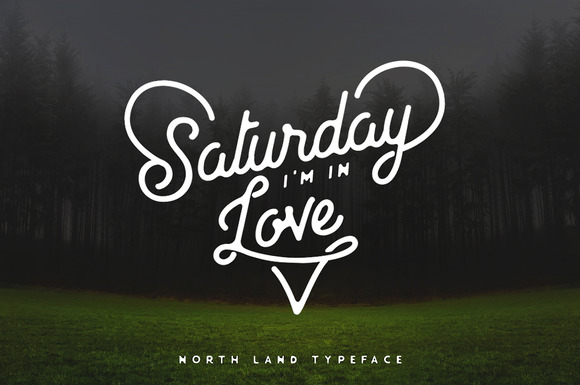
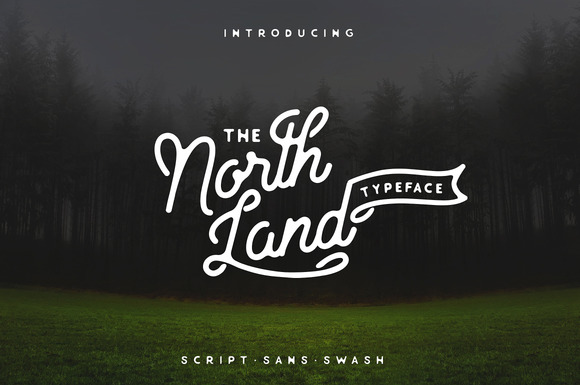
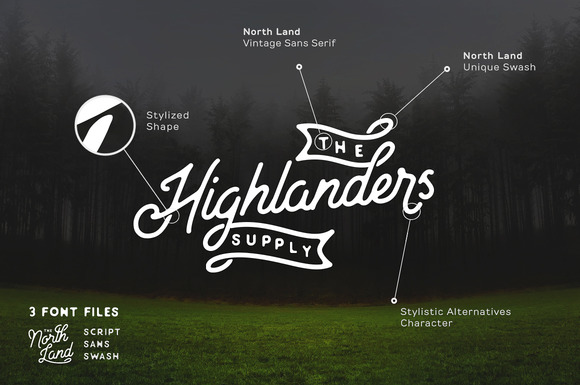
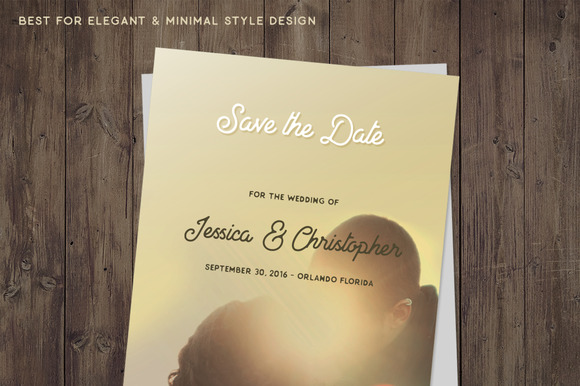
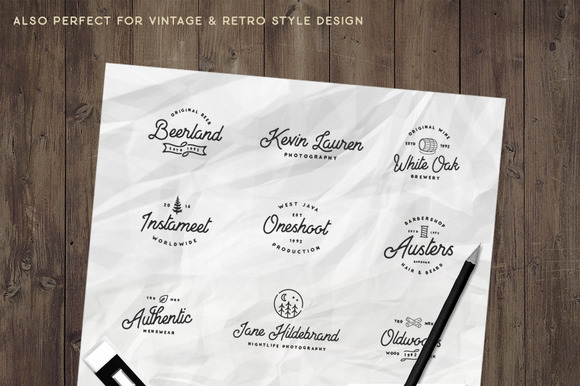
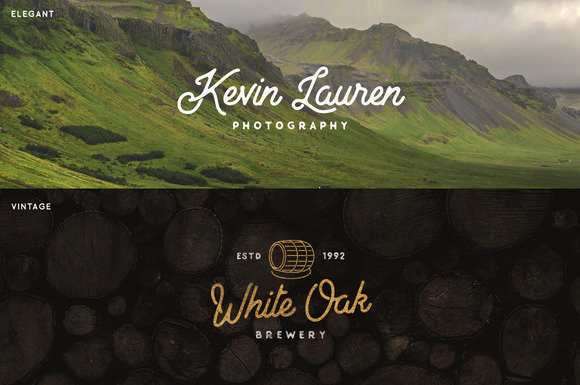
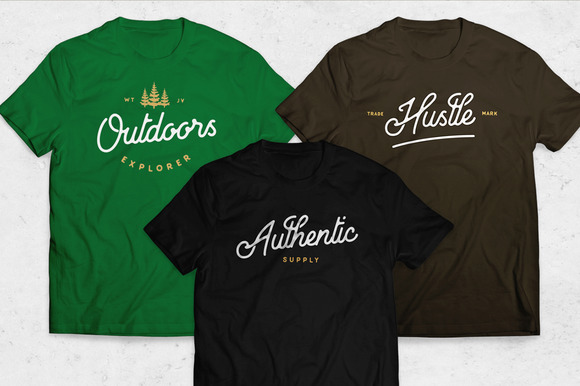
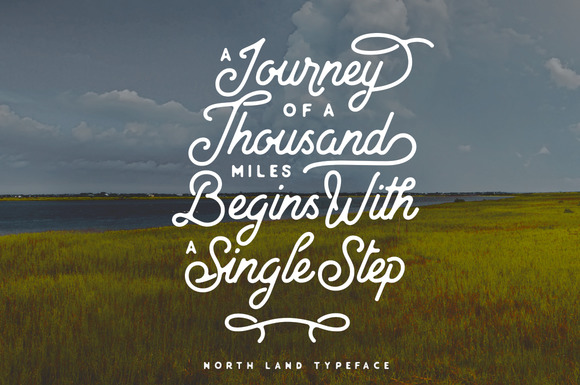
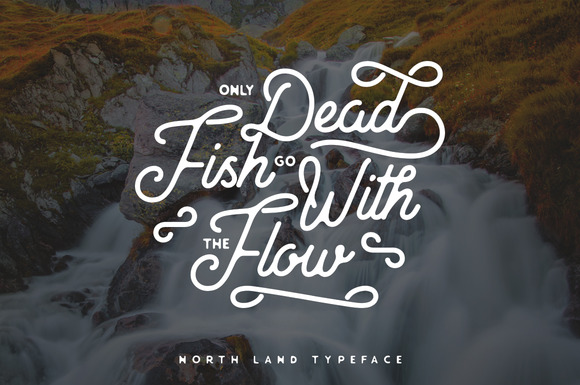
Special Character
Fanatic Font by Genesis Lab
Fanatic is, fun, modern, bold and multi-purpose typeface combines handwritten letters brush naturally. It is suitable for logos, packaging, titles, posters, t-shirts, etc. With 256 glyphs and 90 alternate character, you can mix and match according to your design Fanatic. Alternate characters are divided into several OpenType features such as ligature, alternately Contextual, alternating style, set style, and swash.
It can be accessed by using OpenType savvy programs like Adobe Illustrator and Adobe InDesign. features can be accessed by using Open Type save programs such as Adobe Illustrator, Adobe InDesign, Adobe Photoshop Corel Draw X version, And Microsoft Word.
And this has given PUA unicode font (specially coded fonts). so that all the alternate characters Easily can be accessed in full by a Craftsman or designer
Features:
Initial Alternates
Contextual Alternates
Standard ligatures
Unique ligatures
Stylistic Alternates
Stylistic sets
Swash
Basic Latin A-Z and a-z
Numbers
International Symbols include